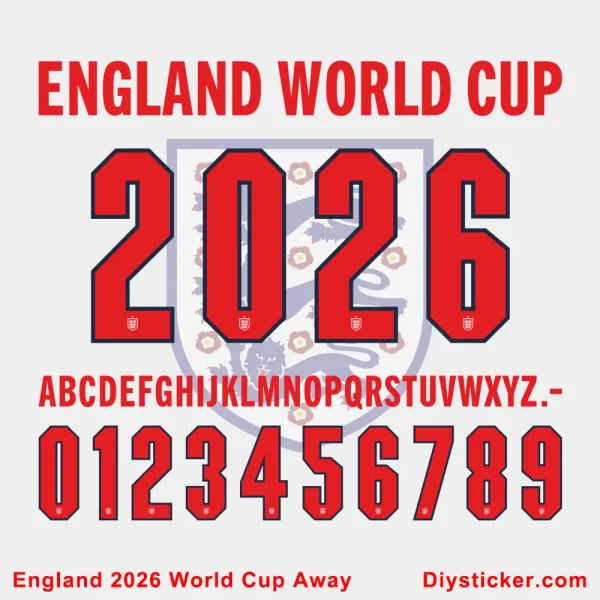
England 2026 World Cup Font – Complete Vector & Font Package
Celebrate the beautiful game with the official-style England 2026 World Cup Font. Designed for the Three Lions’ away campaign, this typeface captures the bold, modern look seen on official match kits and promotional materials. Whether you’re creating custom football shirts, fan merchandise, posters, or digital content, this font delivers professional quality with every character.